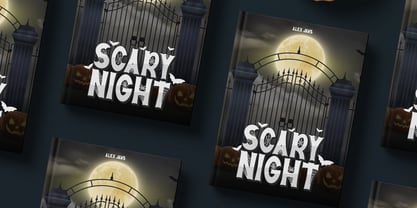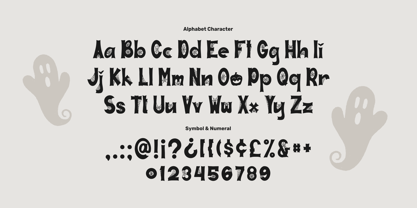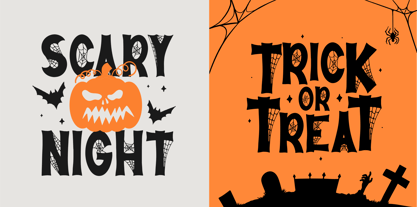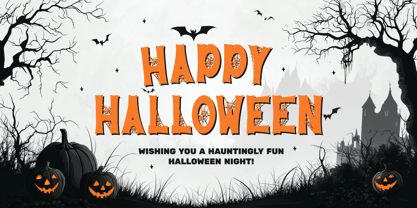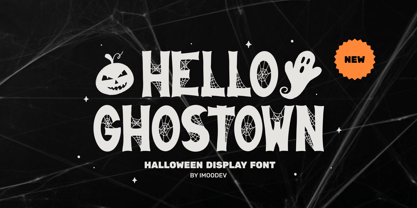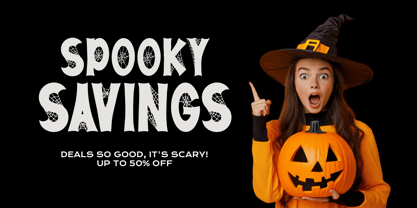
Ghostown
by Imoodev
The Ghostown Font Family was designed by Aulia Savira Putri and published by Imoodev. Ghostown contains 1 styles. More about this family
Ghostown is a spooky display font designed for halloween themed projects. It features fun, playful letters with jagged edges and decorative spiderwebs. The font includes ghost and pumpkin elements, adding to its festive charm. Perfect for posters, party invites, headlines, apparel, comics, cover books, seasonal designs, and any design that requires a horror or scary look, it brings a lighthearted haunted vibe to any layout.
Designers: Aulia Savira Putri
Foundry: Imoodev